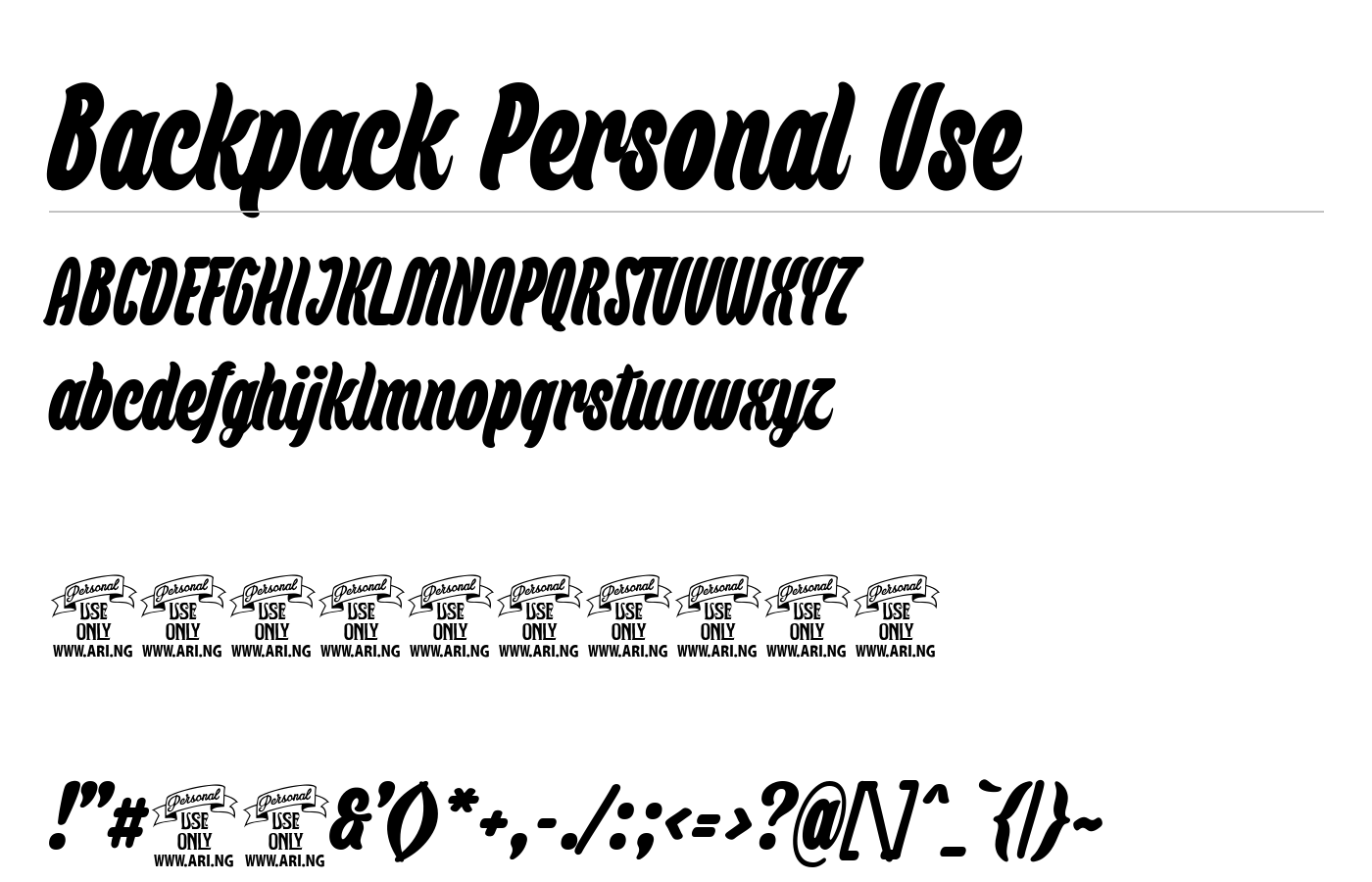
Backpack Personal Use is a bold and playful script font with a strong, casual vibe. Its smooth, rounded letterforms and consistent weight give it a friendly and approachable feel, making it ideal for creative branding, packaging, and eye-catching headlines that want to convey warmth and personality. This font works well where a fun, informal touch is needed to engage audiences with a lively and energetic style.
Backpack Personal Use Font
About Backpack Personal Use Font